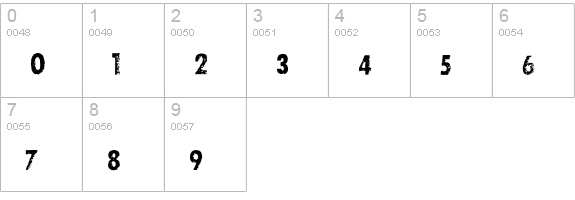
DIRTY SOCKS SKINNY Font Details
Introducing the DIRTY SOCKS SKINNY font, a quirky and playful typeface that exudes a casual and laid-back charm. With its slender and slightly distorted letterforms, this font adds a touch of whimsy to any design project. The irregularity of the strokes gives DIRTY SOCKS SKINNY a hand-drawn feel, making it perfect for projects that require a unique and artistic touch. Best of all, this font is available for free download at FontsMarket.com. Whether you're working on a creative poster, a fun branding project, or a playful website design, DIRTY SOCKS SKINNY is sure to stand out and make a statement. Embrace the imperfect beauty of this font and let your creativity shine with DIRTY SOCKS SKINNY.